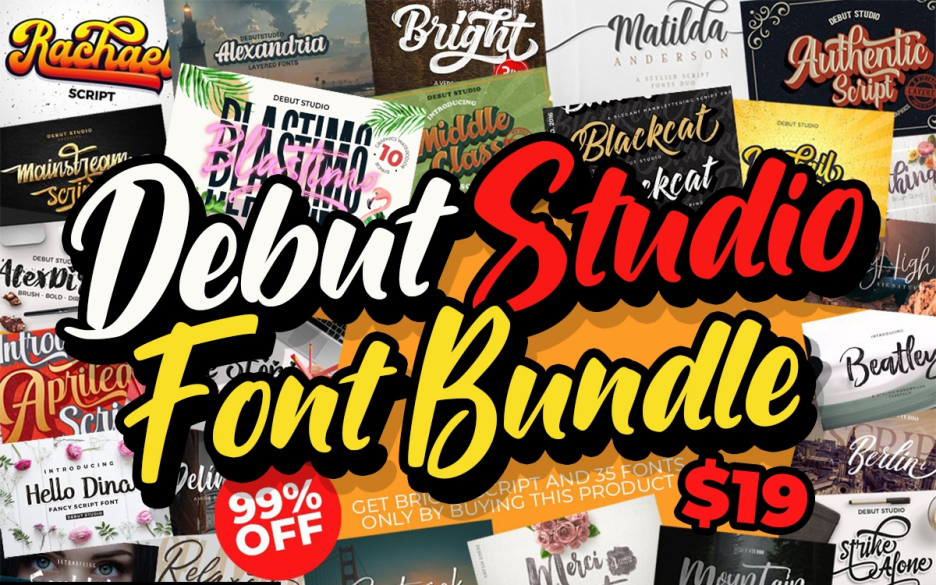
The Debut Studio Font Bundle offers a diverse collection of carefully crafted typefaces suitable for various design projects. This bundle includes a range of styles, from elegant serifs to modern sans-serifs, ensuring you have the perfect font for every occasion.
- Multiple font styles including serif, sans-serif, and script
- Various weights and styles for versatility
- High-quality design for professional use
- Easy to read and visually appealing
- Weights: Light, Regular, Bold, and more
- Ideal for branding, logos, and marketing materials
- Perfect for web design and print projects
- Utilize in user interfaces for a polished look
Debut Studio Font Bundle